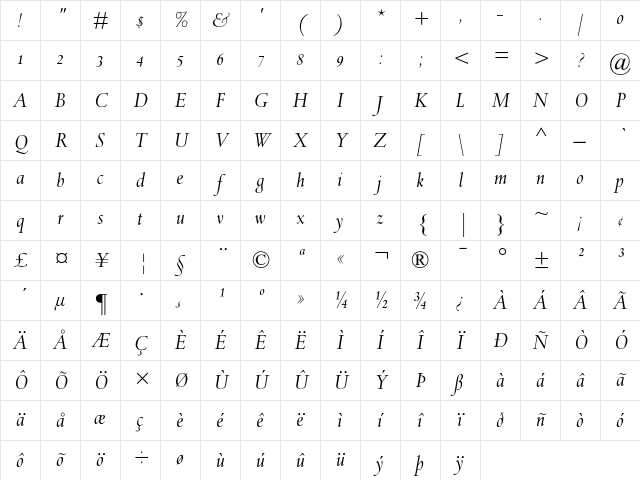
Complete Spectrum MT Italic Oldstyle Figures glyph index. Displaying only characters natively supported by Spectrum MT Italic Oldstyle Figures font.
Spectrum MT carries the refined structure of traditional serif typography, with bracketed terminals and considered proportions that communicate credibility and craft. The slanted form adds forward momentum and visual energy.